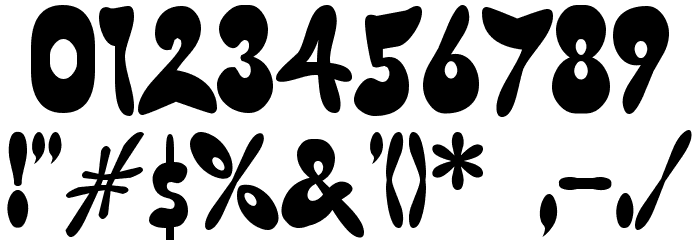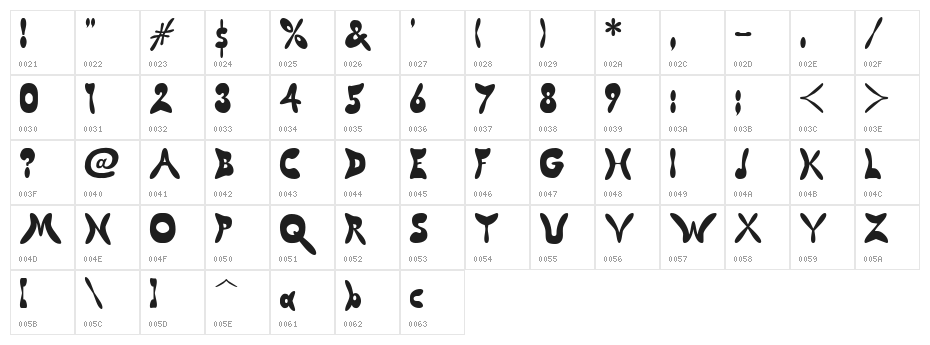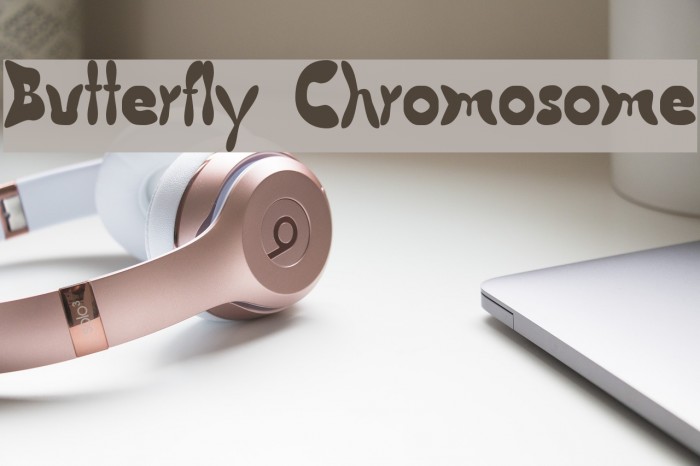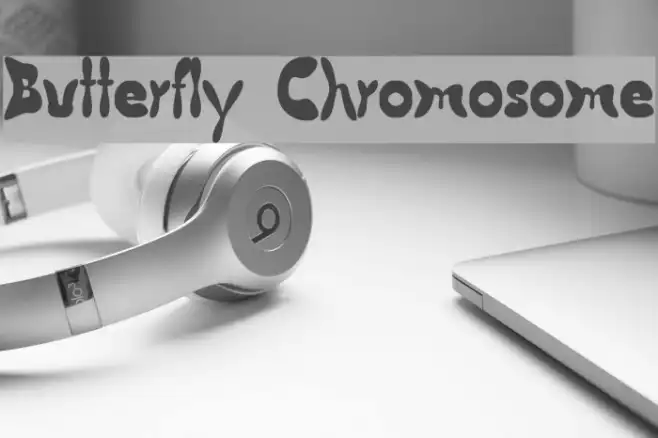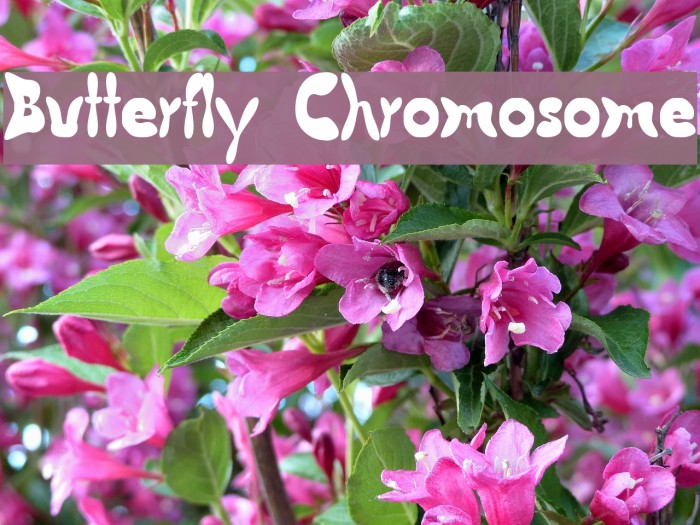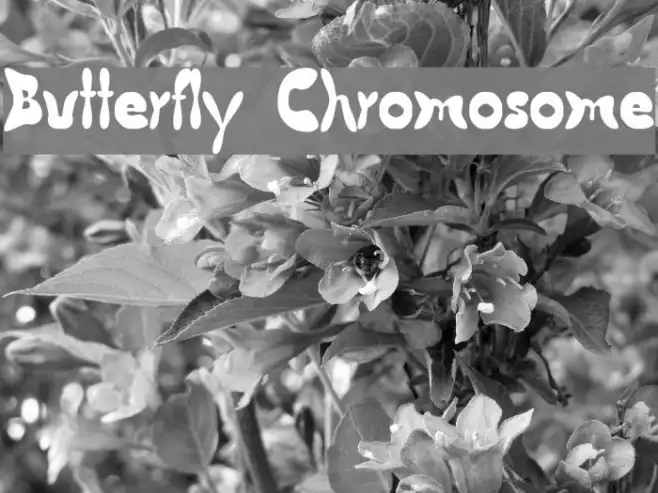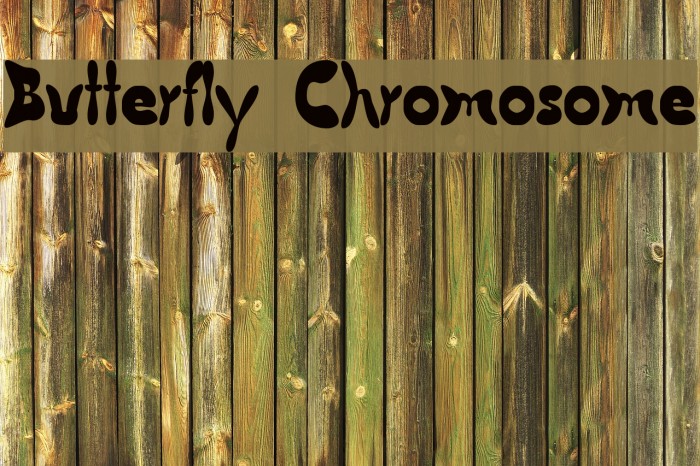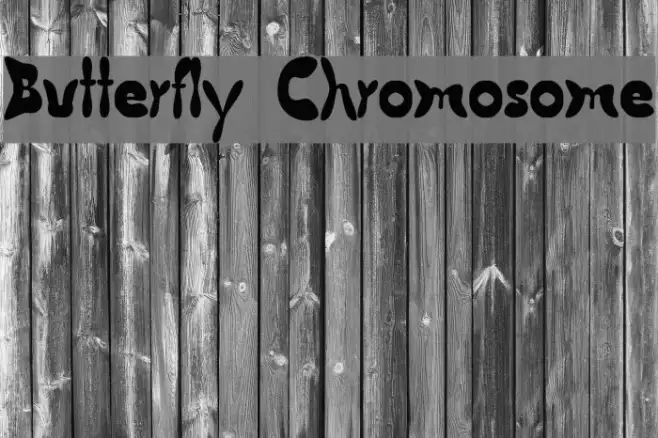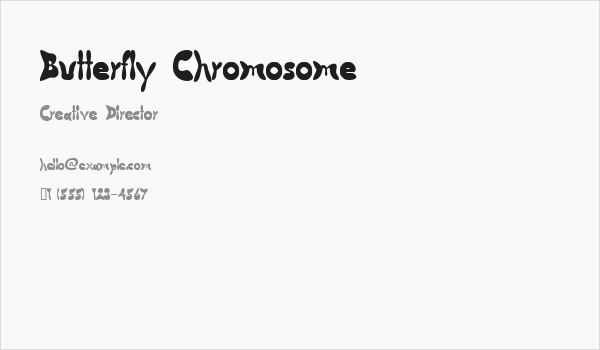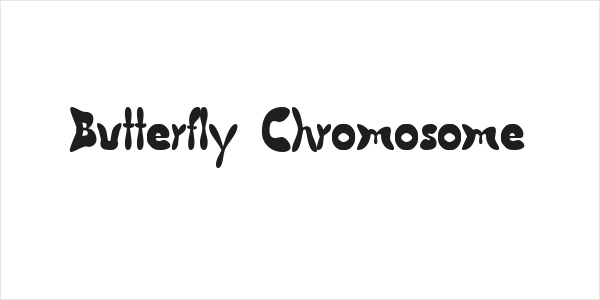
Butterfly Chromosome Font
Butterfly Chromosome Description
This font features a playful and organic design, with each character exhibiting a unique, fluid form reminiscent of natural elements. The letters have a bold, rounded appearance with varying stroke thickness, creating a dynamic and lively aesthetic. The uppercase and lowercase letters maintain a consistent style, with exaggerated curves and whimsical shapes that suggest movement and creativity. The numbers and special characters follow the same design principles, ensuring a cohesive look across all glyphs. This font's distinctive style makes it ideal for projects that require a touch of fun and originality.